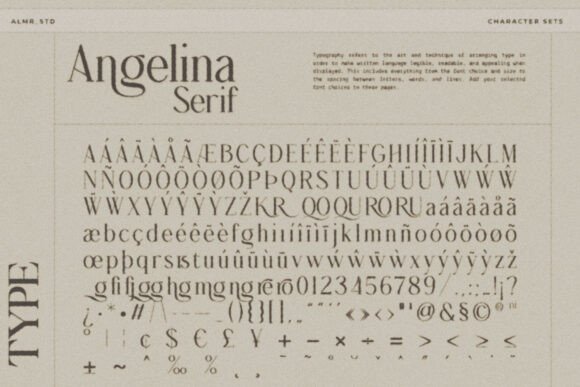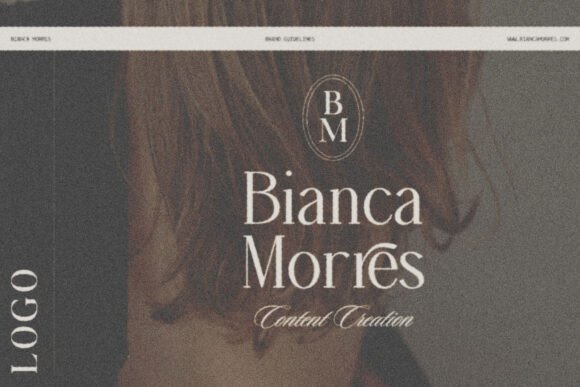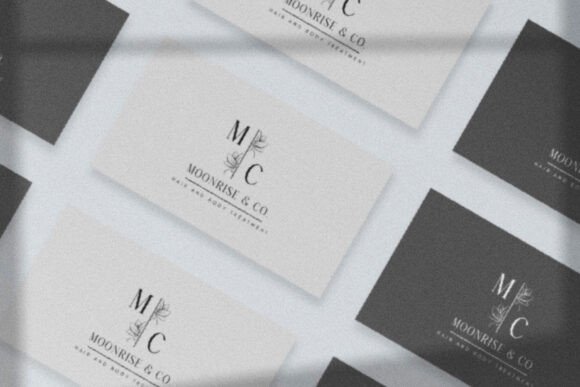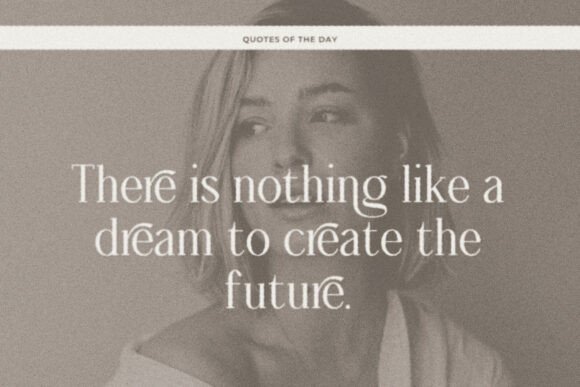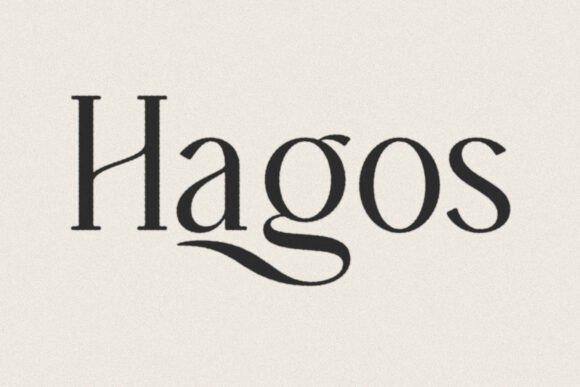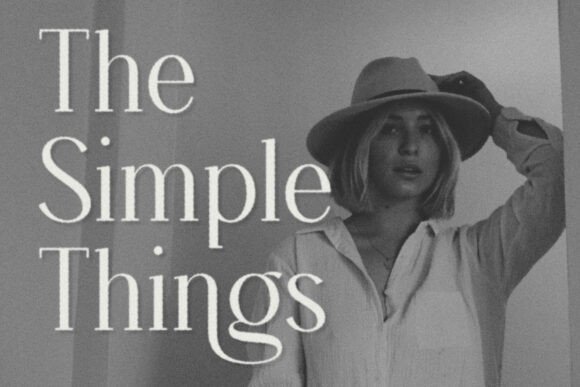
Introducing Angelina Font: Elevate Your Designs with Elegance and Sophistication
In the world of typography, few fonts manage to convey elegance, sophistication, and timeless charm as effectively as Angelina. This beautiful serif font is designed to captivate with its graceful curves, refined details, and luxurious feel. Whether you’re a designer, craftsperson, or simply someone who appreciates the art of beautiful typography, Angelina is sure to leave a lasting impression.
The Essence of Angelina Font
Angelina is more than just a font – it’s an experience. Its elegant serif design exudes refinement and poise, making it the perfect choice for projects that demand a touch of luxury. From the flowing curves of its letters to the sophisticated ligatures and stylish details, every aspect of Angelina has been carefully crafted to evoke a sense of high-end style and sophistication.
One of the standout features of Angelina is its ability to bring a sense of timelessness to any design. Unlike trendy fonts that may quickly go out of style, Angelina’s classic design ensures that your projects will remain relevant and stylish for years to come. Whether you’re creating logos, editorial designs, or branding materials, Angelina provides a solid foundation for crafting beautiful, enduring designs.
Perfect for Luxurious Projects
So, what types of projects are best suited for Angelina? The answer is simple: any project that demands elegance, sophistication, and a touch of luxury. Here are a few ideas to get you started:
- Women’s Magazines: Create stunning editorial designs with Angelina’s refined and elegant font.
- Cosmetic Brands: Elevate your branding with Angelina’s sophisticated ligatures and stylish details.
- Modern Advertising: Make a lasting impression with Angelina’s luxurious feel and timeless charm.
- Fashion Promotions: Bring a touch of class to your fashion branding with Angelina’s elegant serif design.
Angelina’s versatility extends far beyond the world of editorial design and branding. This beautiful font can be used in a wide range of projects, including:
- Invitation Cards: Create stunning invitations with Angelina’s elegant and refined font.
- Art Quotes: Add a touch of sophistication to your art quotes with Angelina’s stylish details.
- Home Décor: Bring a sense of luxury to your home décor projects with Angelina’s timeless charm.
- Book Covers: Create eye-catching book covers with Angelina’s elegant serif design.
Why Choose Angelina Font?
With so many fonts to choose from, why should you choose Angelina? Here are just a few reasons why Angelina stands out from the crowd:
- Elegant Design: Angelina’s elegant serif design makes it perfect for projects that demand a touch of luxury.
- Sophisticated Ligatures: Angelina’s sophisticated ligatures and stylish details add a level of refinement to any design.
- Timeless Charm: Angelina’s classic design ensures that your projects will remain relevant and stylish for years to come.
- Versatility: Angelina can be used in a wide range of projects, from editorial design and branding to home décor and book covers.
In conclusion, Angelina is a truly exceptional font that is sure to elevate your designs to new heights. With its elegant serif design, sophisticated ligatures, and timeless charm, Angelina is the perfect choice for anyone looking to add a touch of luxury to their projects. Whether you’re a designer, craftsperson, or simply someone who appreciates beautiful typography, Angelina is sure to inspire and delight.